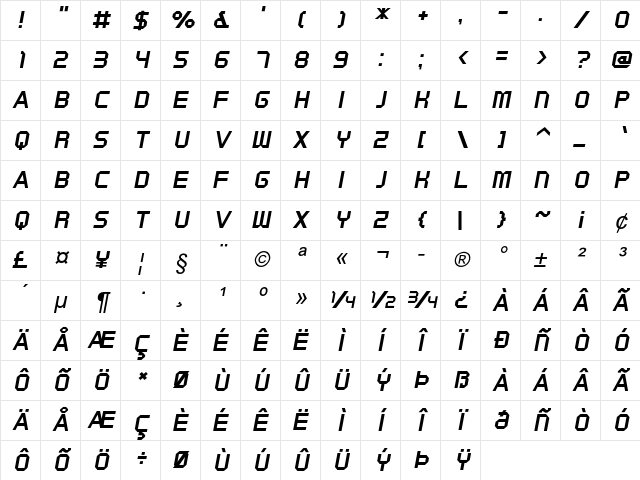
Embeda Italic
Embeda Family
Embeda Italic
Design Context for Embeda
Embeda is a composed and adaptable typeface that performs quietly and consistently across a wide range of design contexts. The slanted form adds forward momentum and visual energy.